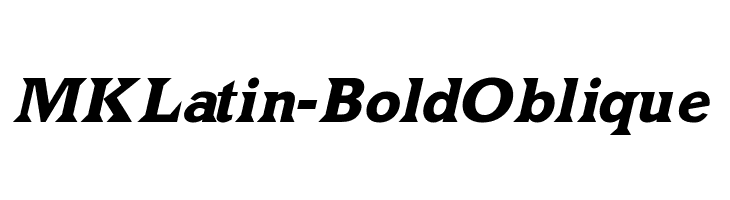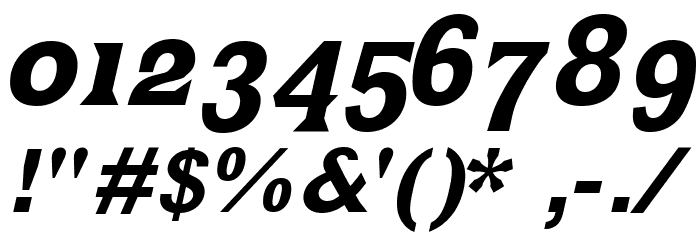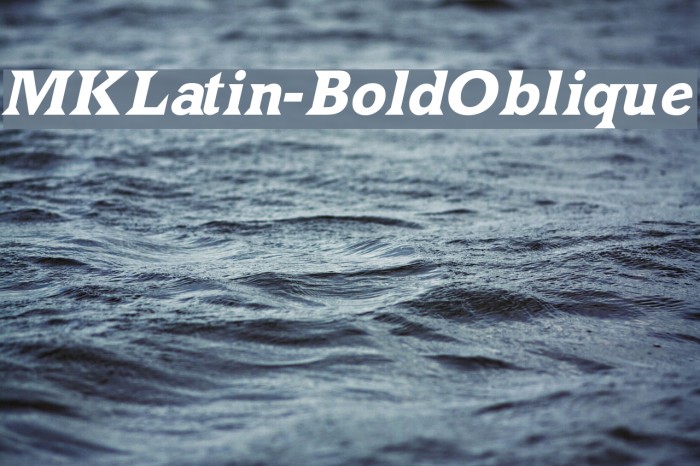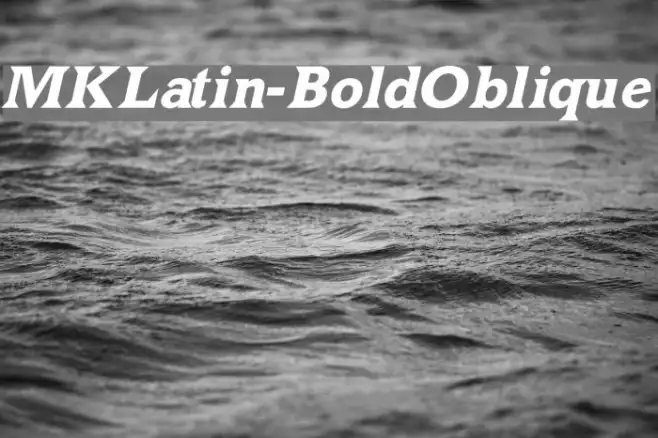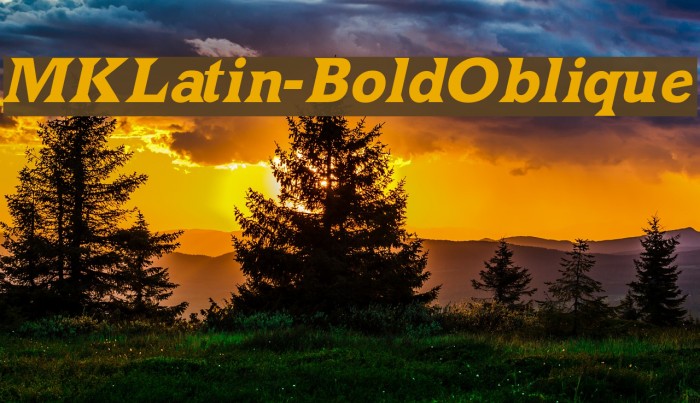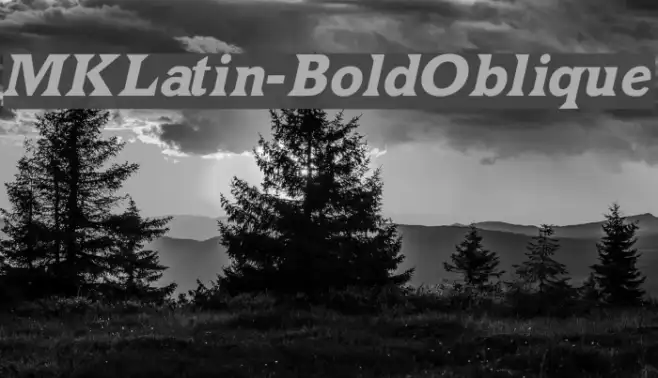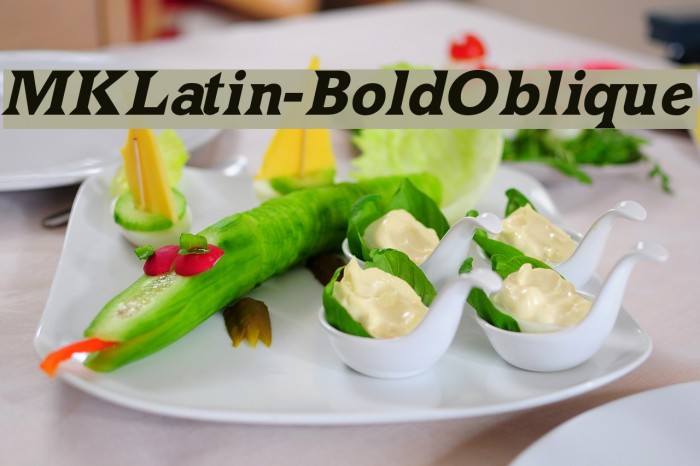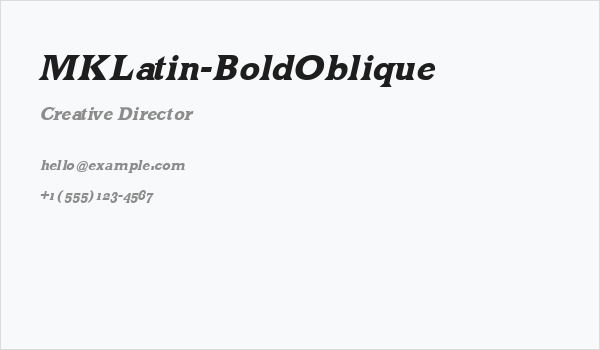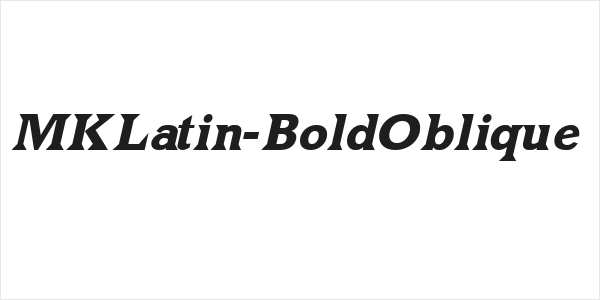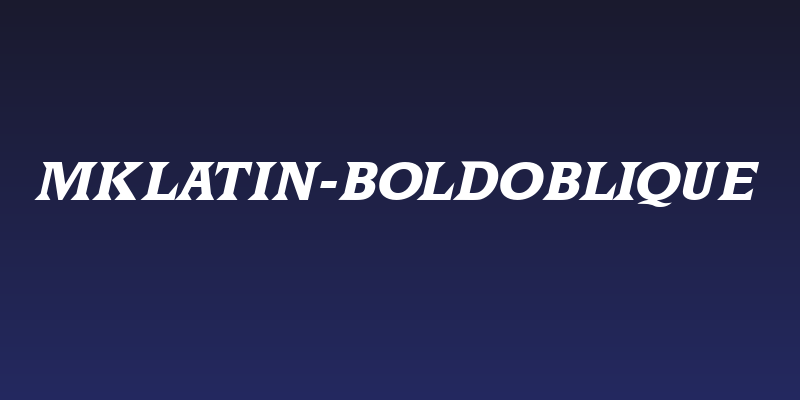
MKLatin-BoldOblique Font
MKLatin-BoldOblique Description
This font exhibits a bold and dynamic style with a pronounced oblique slant, giving it a sense of movement and energy. The characters are robust and well-defined, featuring thick strokes that convey strength and confidence. The uppercase letters are particularly striking, with sharp angles and a slightly condensed form that enhances their impact. The lowercase letters maintain a consistent style, ensuring readability while adding a touch of elegance. The numerals are equally bold, making them stand out in any context. Special characters are included, offering versatility for various design needs. Overall, this font is ideal for projects that require a strong visual presence.